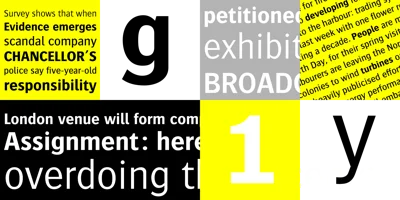
Bosis Font
Bosis Font is perfect for creative agency branding, modern startup logos, innovative tech company identity, contemporary art exhibitions, design studio signage, digital marketing campaigns, architectural firm materials, and cutting-edge product launches. This dynamic typeface excels in projects requiring bold creativity and forward-thinking design where innovation meets visual impact.
What makes Bosis Font exciting is its unique blend of geometric precision with organic flow, creating a distinctive character that speaks to both analytical minds and creative spirits. The font features contemporary letterforms with innovative structural elements and balanced proportions that convey intelligence, creativity, and progressive thinking. Its versatile character makes it perfect for brands seeking to establish themselves as industry leaders and creative innovators.
Bosis Font family includes comprehensive weight variations and stylistic alternatives that provide extensive design flexibility for diverse creative applications. The family typically offers thin, light, regular, medium, semibold, bold, and black weights, along with corresponding italic styles and alternate characters that enhance its contemporary appeal and creative versatility.
Whether you're developing innovative brand identity, creating modern marketing materials, or designing contemporary digital interfaces, Bosis Font delivers exceptional creative sophistication across all modern applications. This font's progressive aesthetic and contemporary appeal make it ideal for organizations embracing change and driving innovation in their respective industries.
The carefully balanced letterforms and modern proportions of Bosis Font ensure excellent readability while maintaining its distinctive contemporary personality at any scale. Its innovative design and creative energy create memorable brand experiences that resonate with forward-thinking audiences and creative professionals. Download Bosis Font today and energize your creative projects with this dynamically designed typeface that perfectly captures the spirit of modern innovation and creative excellence.